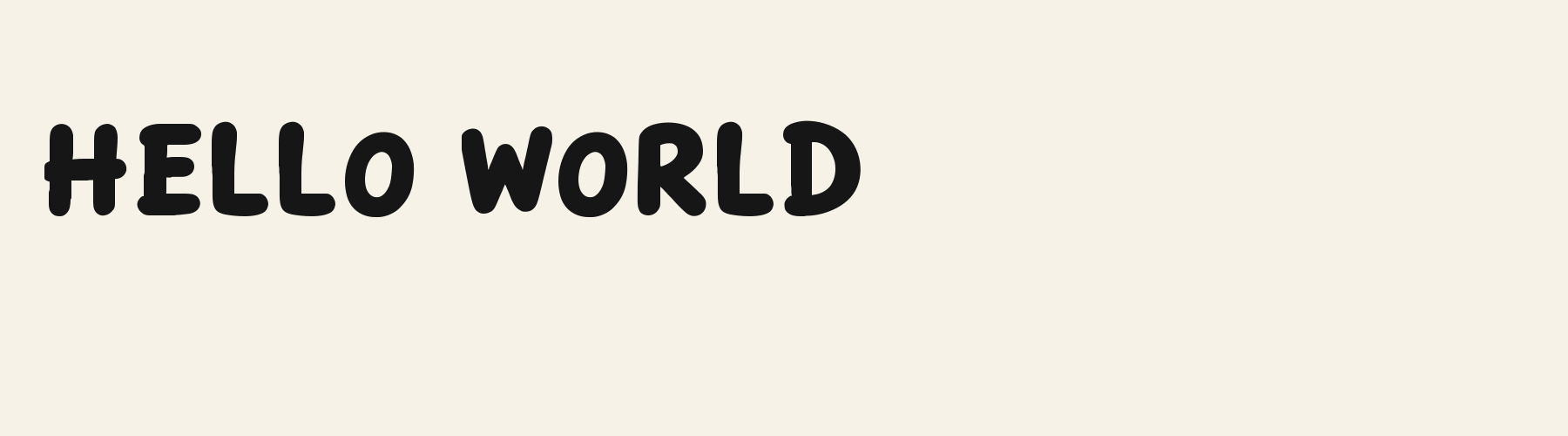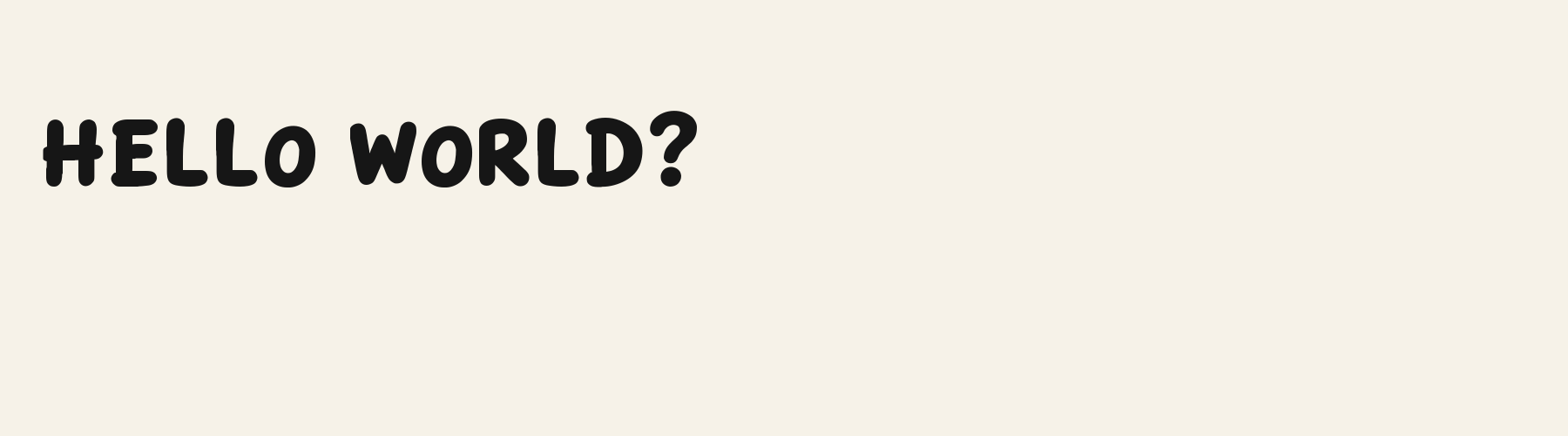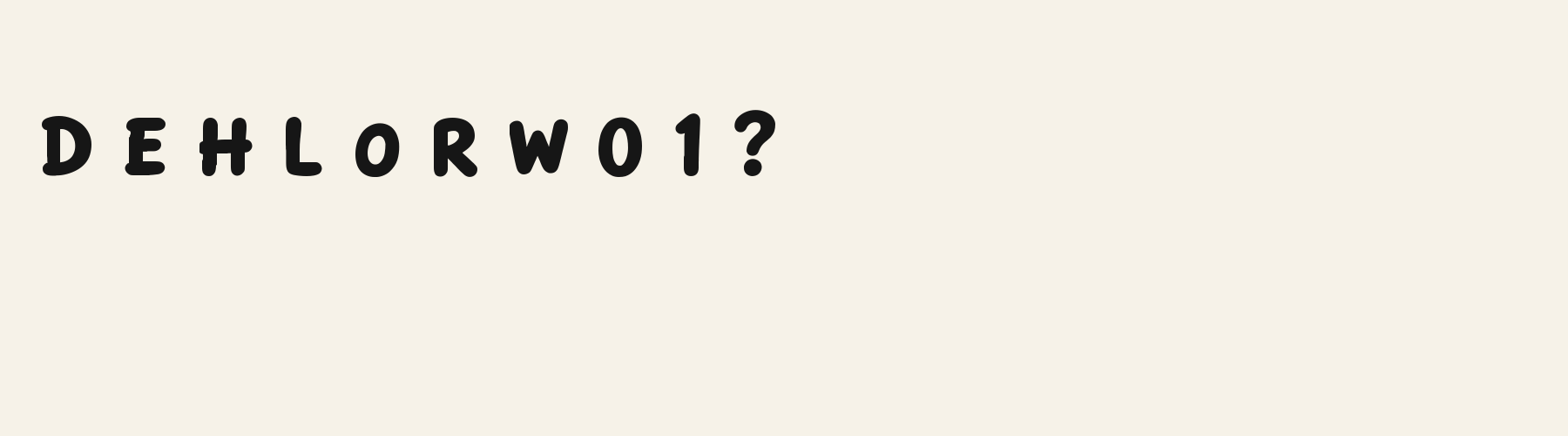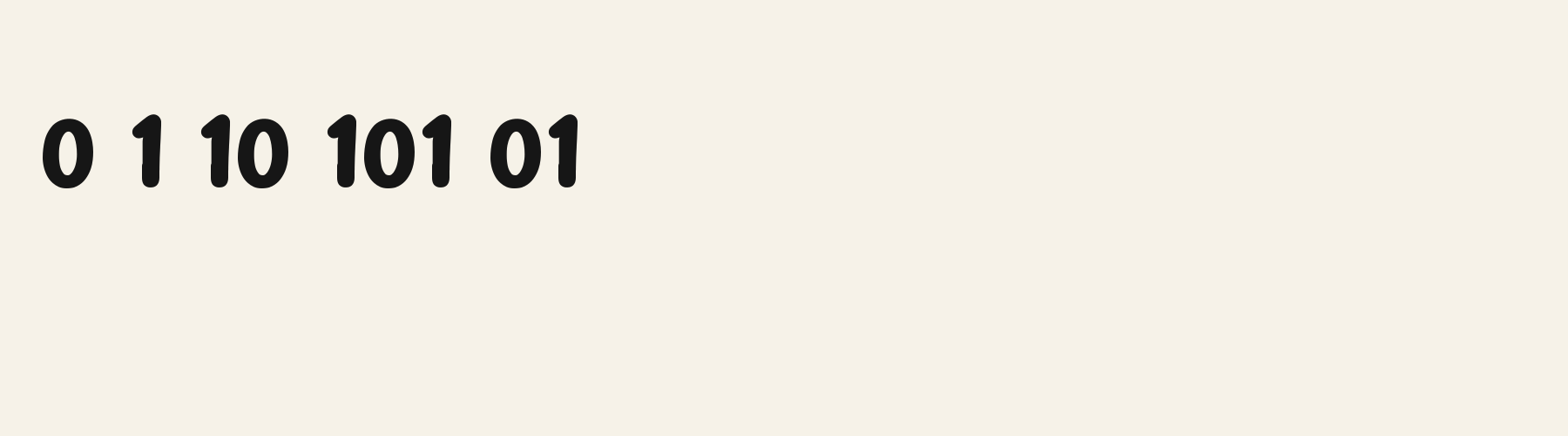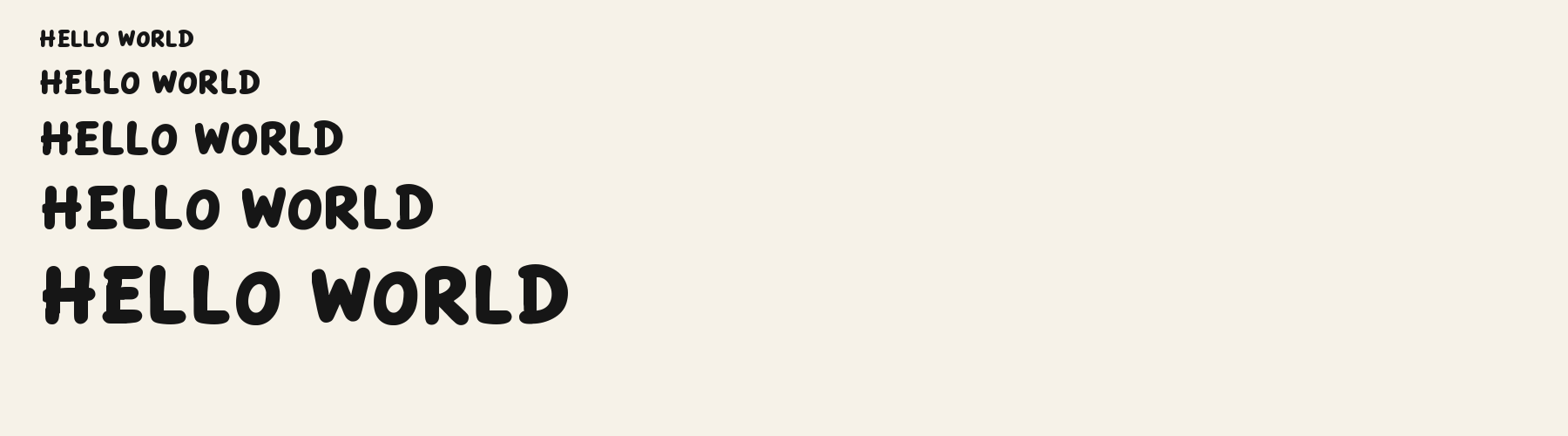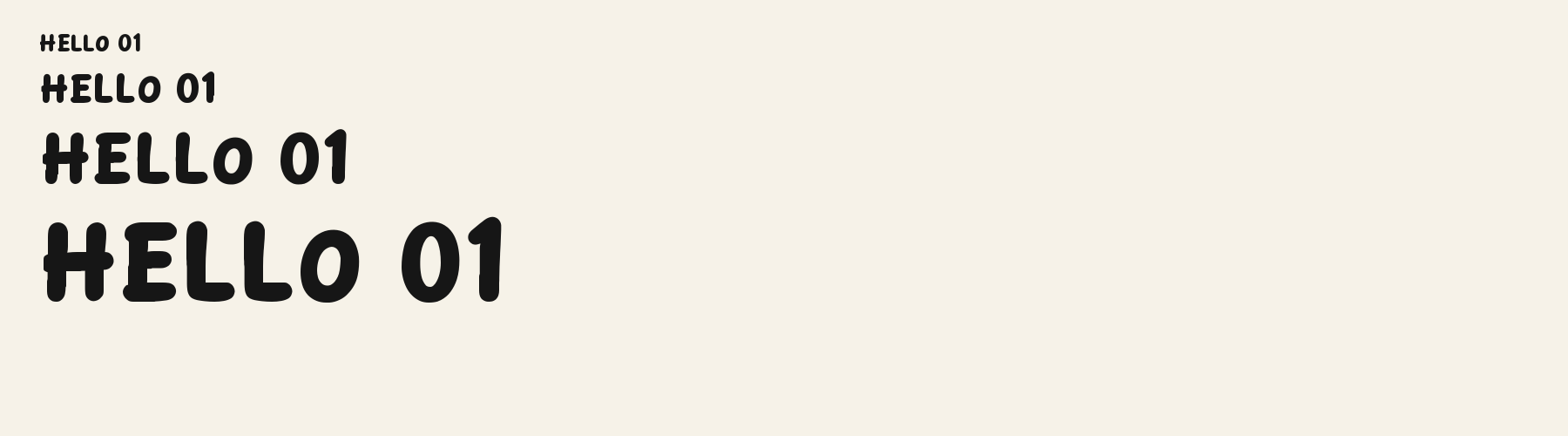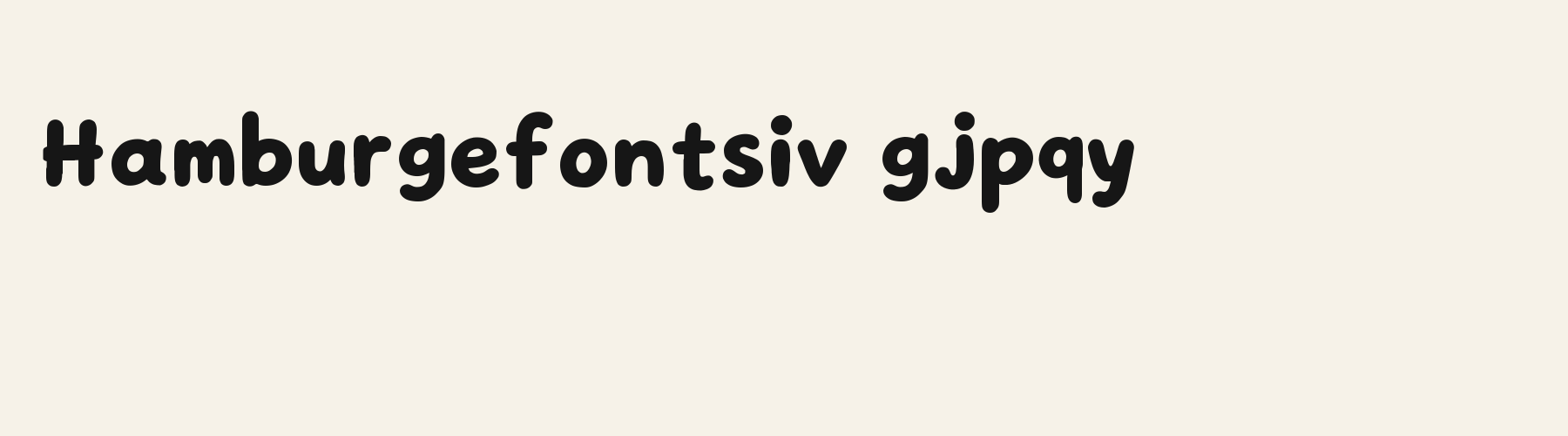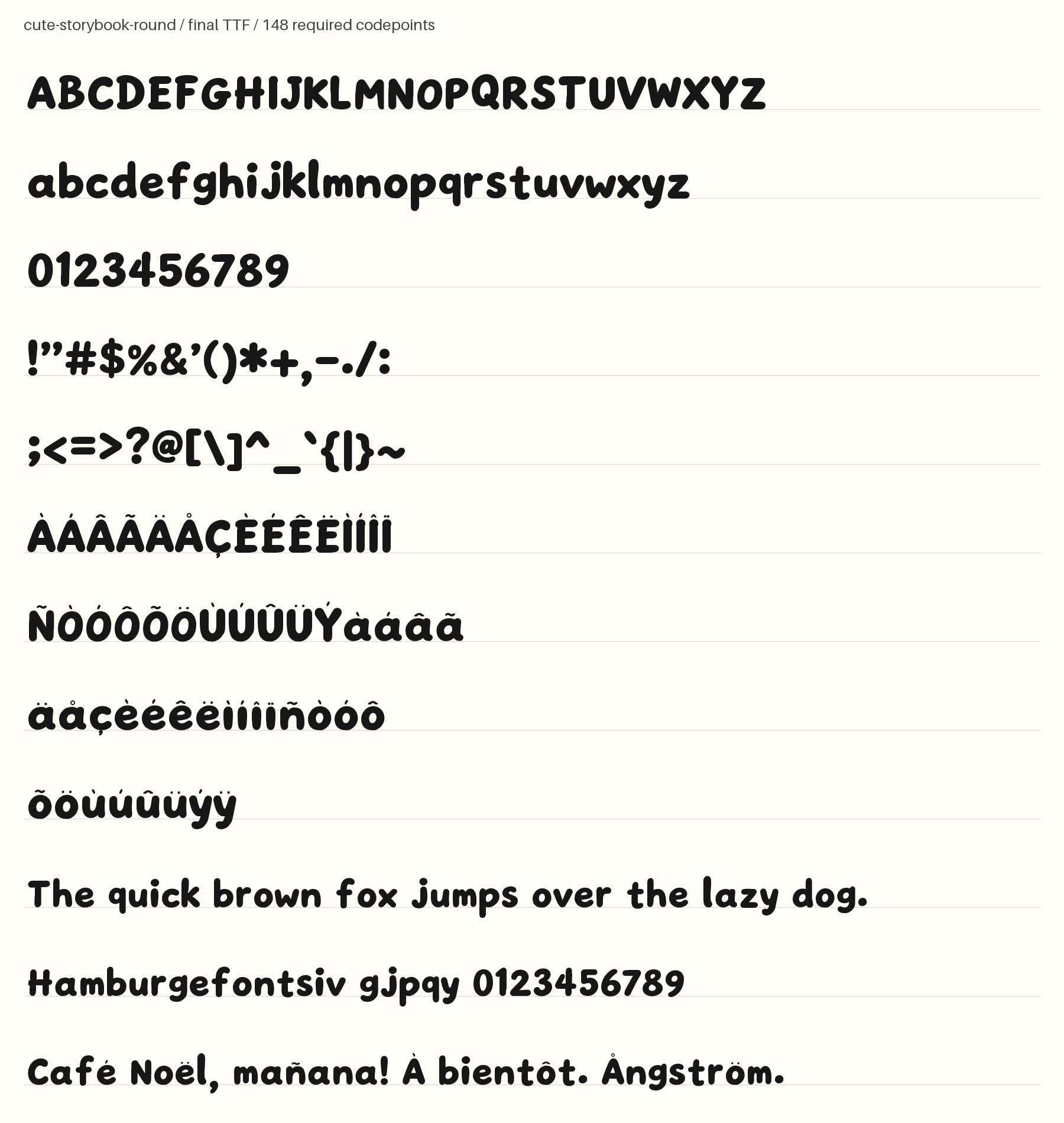
Bubble Soft Petal
DisplayBubble Soft Petal
1 style · 148 glyphs
Display · 1 style · 148 glyphs · Version 0.1.1
Cute Storybook Round is a children’s book covers, birthday activity sheets and cheerful classroom headings. medium-heavy monoline strokes, open counters, short ascenders and softly flattened terminals. Best for children’s book covers, birthday activity sheets and cheerful classroom headings.
Includes all 95 printable Basic Latin characters and 148 glyphs in total.
Verified language coverage: English (Basic Latin)